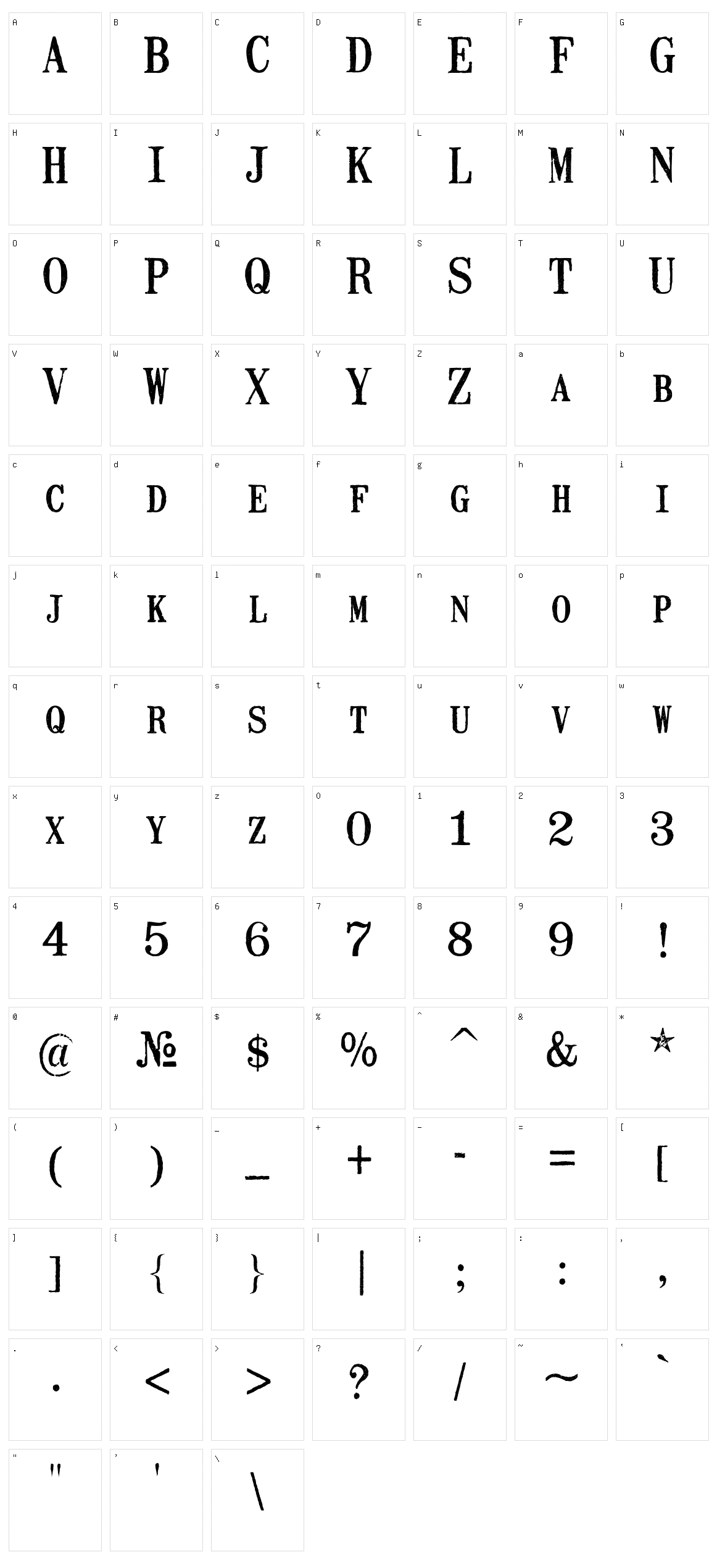
Mailart Rubberstamp now has an additional Bold weight and Obliques. The typeface has also been updated with subtle outline improvements, a bigger repertoire of European accented characters, and more consistent, slightly tighter spacing; increase the tracking to recreate the more relaxed, rustic appearance of the earlier version. The fonts are derived from the individually rubber-stamped letters on printed and collaged envelopes received from mailartists, and the typeface Clarendon Condensed.